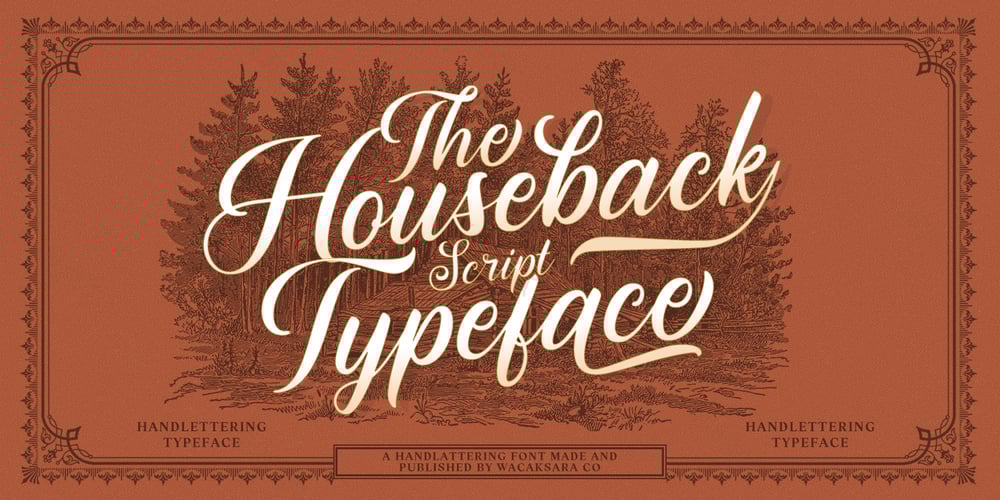
Houseback Font Family was designed by Aliv Pandu, Hamam Jauhari and published by Wacaksara co. Houseback contains 1 styles and family package options. Houseback is truly inspired by hand-lettering and vintage style, with the natural flow of hand-lettering this typeface is ready to use for your projects such as logotype, letterhead, posters, apparel design, labels, advertisements, product designs, mural, and more.